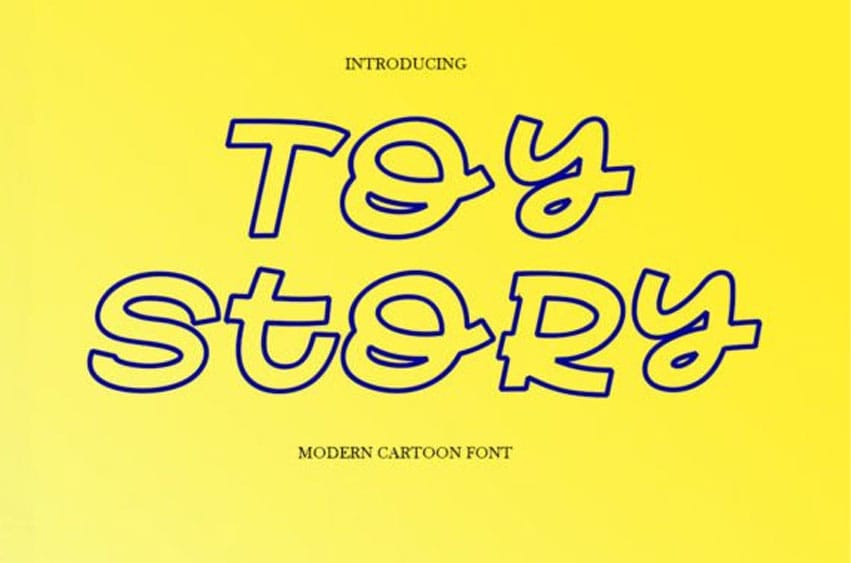
Toy Story Modern Font is a cool and outlined display font. It will look stunning on any poster, flyer, or print.
Use this font for your designs and explore its endless possibilities.